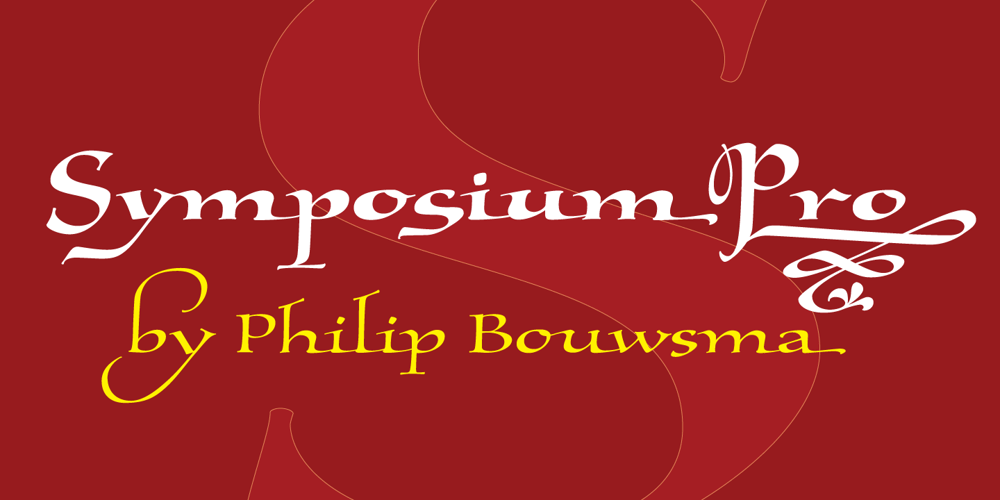
Symposium Pro Font Family was designed by Philip Bouwsma, Patrick Griffin and published by Canada Type. Symposium Pro contains 4 styles and family package options. Philip Bouwsma’s Symposium Pro is a wide Carolingian script that can be set simply or with a wide range of flourishes. It takes its inspiration from the scriptoria of the twelfth century, particularly in Spain, where Christians, Muslims and Jews lived harmoniously in a brilliant culture for two centuries. As manuscripts were translated and copied to meet the Western demand for classical texts, calligraphic elements from Arabic and Hebrew spread throughout Europe, sparking a proliferation of new styles that brought the simple book hand to a higher level. Symposium Pro spans a broad range of time and space, from the court of Charlemagne to the Arabian nights and Renaissance Florence. Symposium Pro comes in four weights, ranging from Light to Bold, with each font containing over 1200 glyphs. Variations on every letter form, from swashes to subtle alterations, are plenty, with some even having up to 40 alternates. Also plenty are the embedded ornaments and flourishes, over a hundred of them. Keep that glyph palette handy for many pleasant surprises and easy setting solutions.